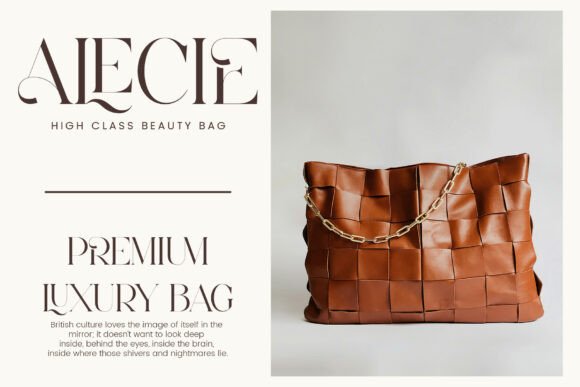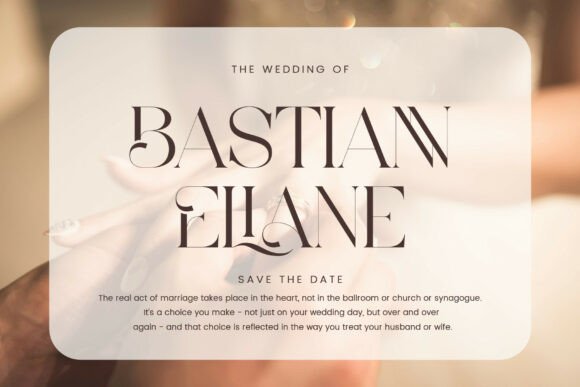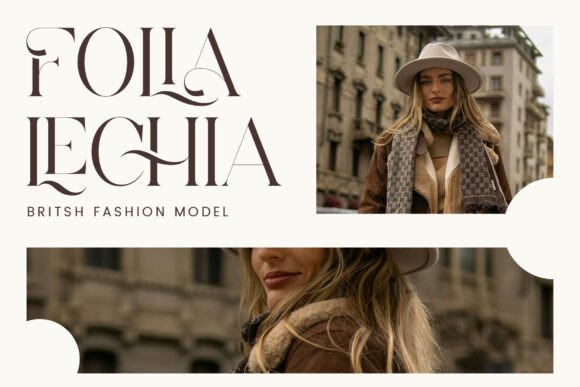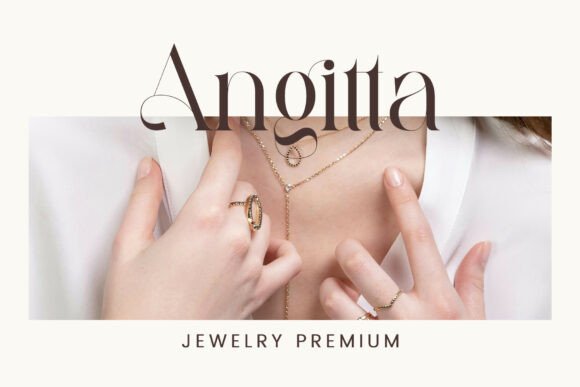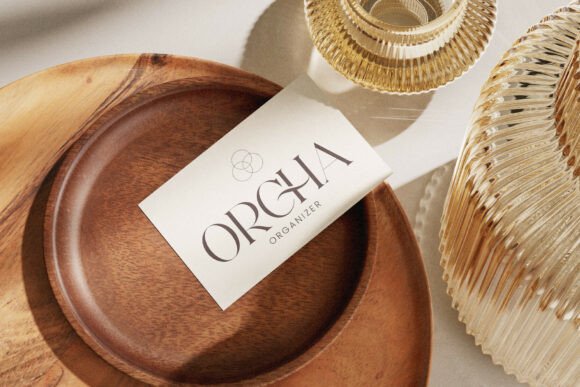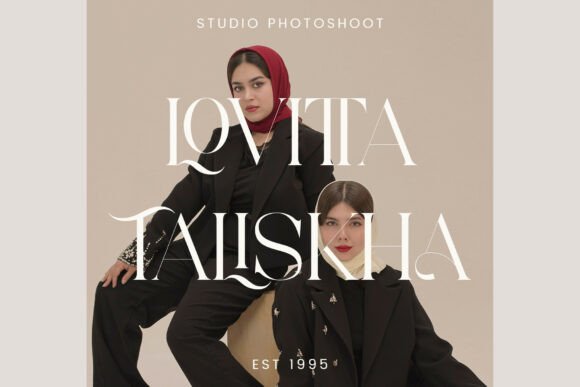
Introducing Chalia Font: The Ultimate Ligature Typeface for Modern Designers
In the world of typography, a font can make all the difference in creating a lasting impression. For designers and crafters, finding the perfect typeface that combines style, elegance, and versatility can be a daunting task. However, if you’re looking for a font that checks all these boxes and more, look no further than Chalia Font. Inspired by the famous minimalist logo, Chalia is a stylish ligature typeface that has taken the design world by storm.
What is Chalia Font?
Chalia is a modern, ligature typeface that boasts a sleek and sophisticated design. Its clean lines, elegant curves, and minimalist aesthetic make it perfect for a wide range of design applications. From creating stunning templates and brochures to crafting eye-catching logos and branding materials, Chalia Font is the ultimate tool for designers looking to elevate their work.
The Inspiration Behind Chalia Font
Chalia Font draws inspiration from the famous minimalist logo, which is renowned for its simplicity and elegance. The font’s creator aimed to capture the essence of this iconic logo and translate it into a versatile typeface that could be used in various design contexts. The result is a font that exudes sophistication, refinement, and style.
Key Features of Chalia Font
So, what makes Chalia Font so special? Here are some of its key features:
• Ligature Design: Chalia Font features a ligature design, which means that it includes special characters that combine to create a unique and elegant look.
• Clean Lines and Elegant Curves: The font boasts clean lines, elegant curves, and a minimalist aesthetic that makes it perfect for modern designs.
• Versatility: Chalia Font is incredibly versatile and can be used in a wide range of design applications, from templates and brochures to logos and branding materials.
• Easy to Read: Despite its elegant design, Chalia Font is easy to read, making it perfect for body text and headlines.
Use Cases for Chalia Font
Chalia Font is an incredibly versatile typeface that can be used in a wide range of design applications. Here are some use cases to get you started:
• Designing Templates: Use Chalia Font to create stunning templates for presentations, reports, and other documents.
• Brochures and Flyers: Create eye-catching brochures and flyers that showcase your brand’s personality and style.
• Video Titles and Subtitles: Use Chalia Font to create stylish video titles and subtitles that add a touch of elegance to your videos.
• Advertising and Branding: Create stunning advertising materials and branding assets that showcase your brand’s personality and style.
• Logo Design: Use Chalia Font to create unique and memorable logos that set your brand apart.
Tips for Using Chalia Font
Here are some tips for getting the most out of Chalia Font:
• Experiment with Ligatures: Take advantage of Chalia Font’s ligature design to create unique and elegant text combinations.
• Pair with Other Fonts: Experiment with pairing Chalia Font with other fonts to create visually appealing typography.
• Use in Headlines and Body Text: Use Chalia Font in both headlines and body text to create a cohesive and elegant look.
In conclusion, Chalia Font is a stylish ligature typeface that is perfect for modern designers and crafters. Its elegant design, versatility, and ease of use make it an excellent choice for a wide range of design applications. Whether you’re creating templates, brochures, logos, or branding materials, Chalia Font is sure to elevate your work and leave a lasting impression.